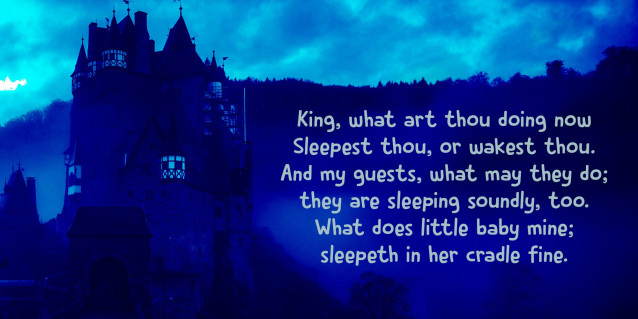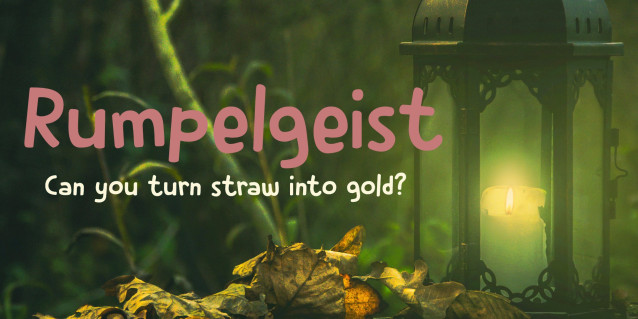
Rumpelgeist Playful Font
Rumpelgeist Playful Font. Back in 2011, I released a font called Rumpelstiltskin. When I created Rumpelstiltskin, I only knew so much about making fonts, so it lacked a lot of glyphs. I decided to give this old font an overhaul, but when I was almost finished, I realised that the ‘improved’ Rumpelstiltskin had changed too much. That is why I am releasing it as a new font called Rumpelgeist. Rumpelgeist, in German, means ‘rattling ghost’, or ‘poltergeist’ if you want. Maybe the Grimm brothers had this particular goblin in mind when they wrote the original fairy tale!
Rumpelgeist comes with extensive language support.